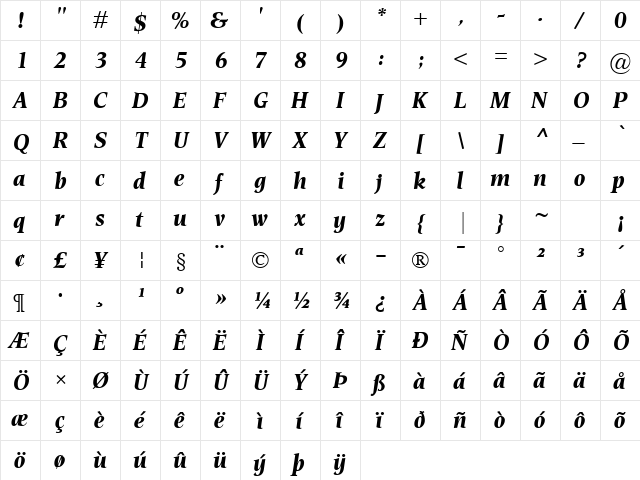
Esperanto BoldItalic Font Preview
Design Context for Esperanto Typeface
Esperanto takes a measured approach to typography — its balanced proportions and neutral character make it a reliable workhorse for both digital and print work. Its italic angle brings a sense of urgency and motion to the letterforms. Its bold stroke weight gives it real presence on the page.
Pro Tip: Try Esperanto for annotation and caption copy alongside an upright companion — the contrast in angle creates a dynamic but ordered typographic system.